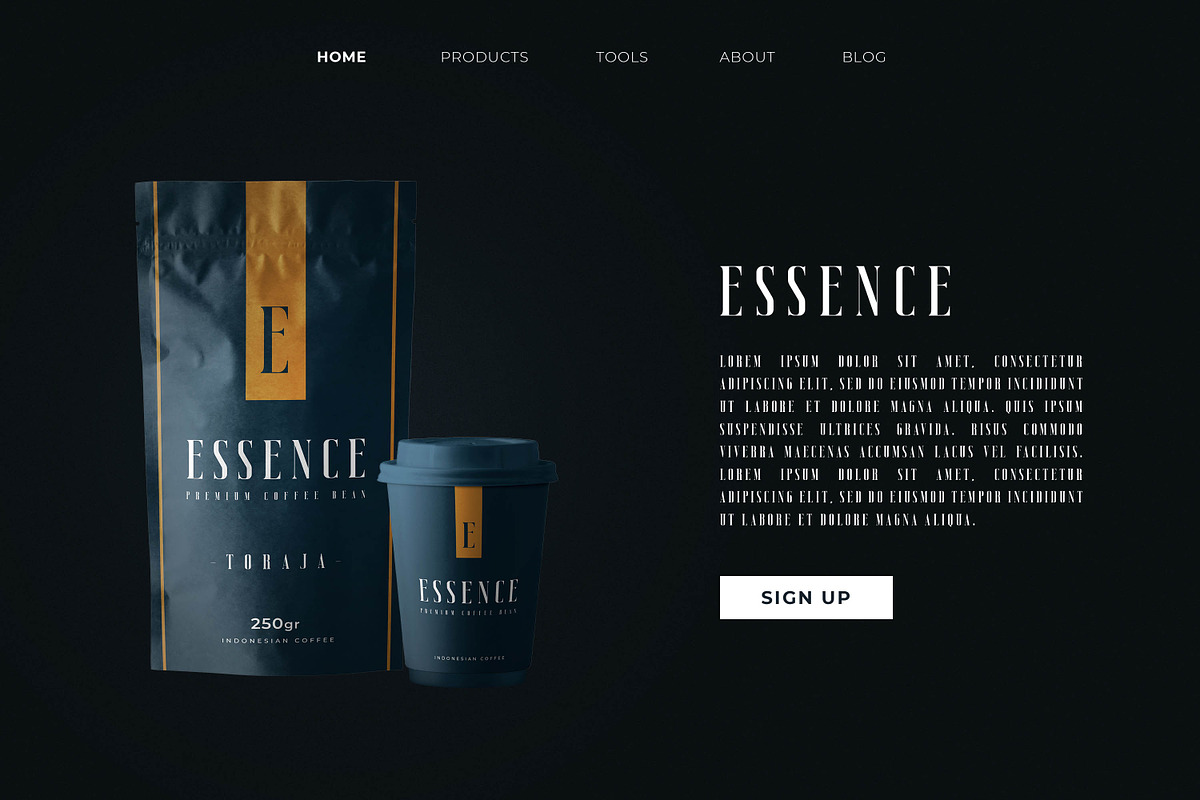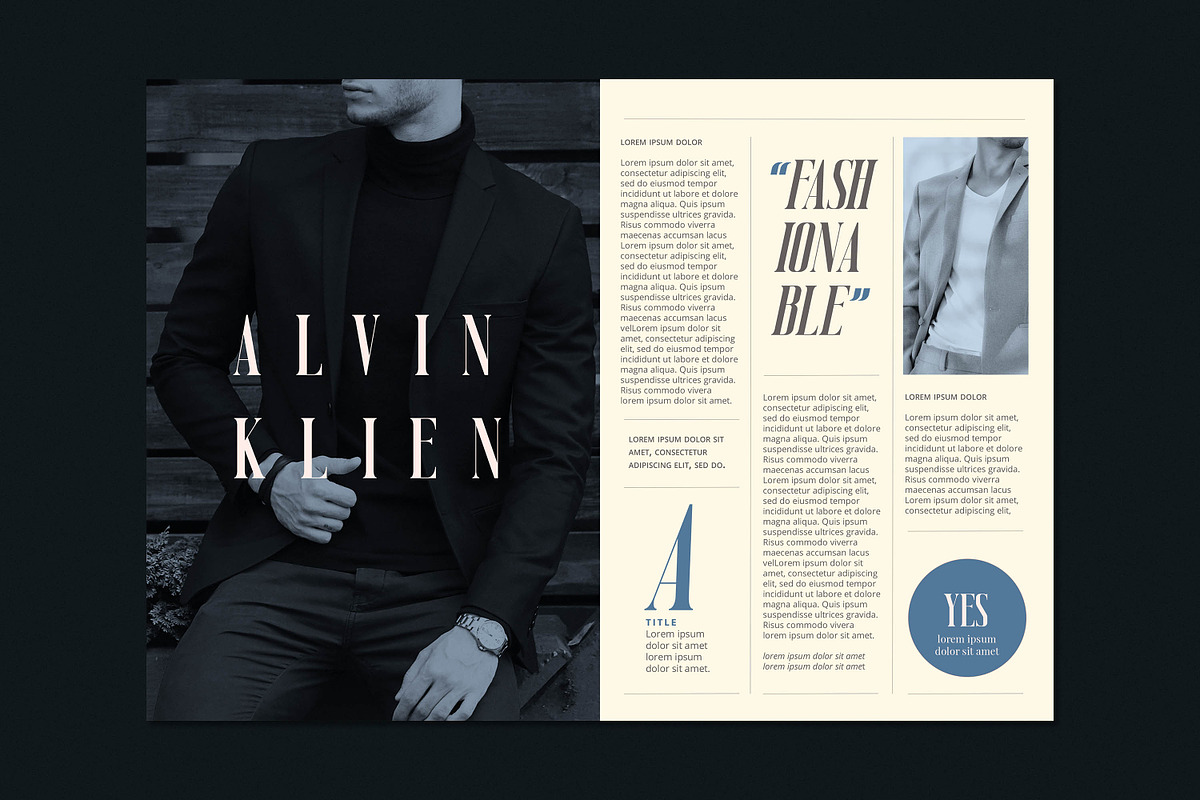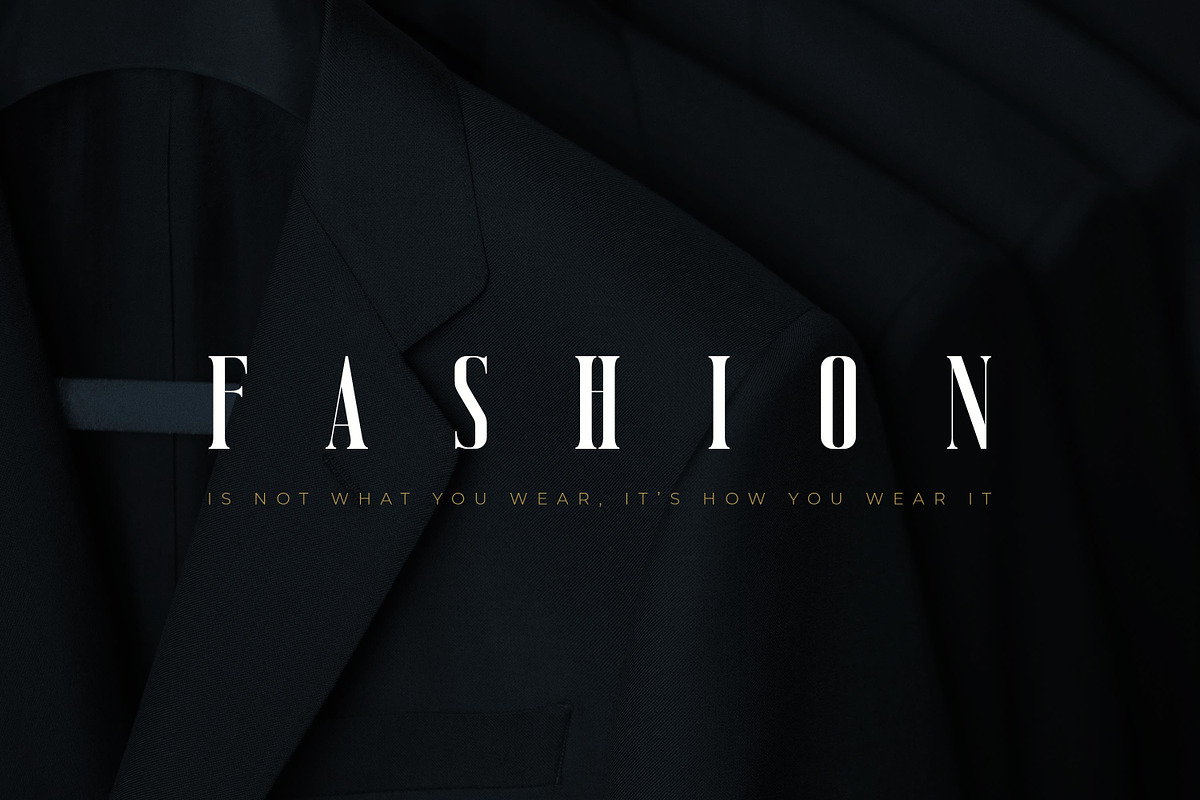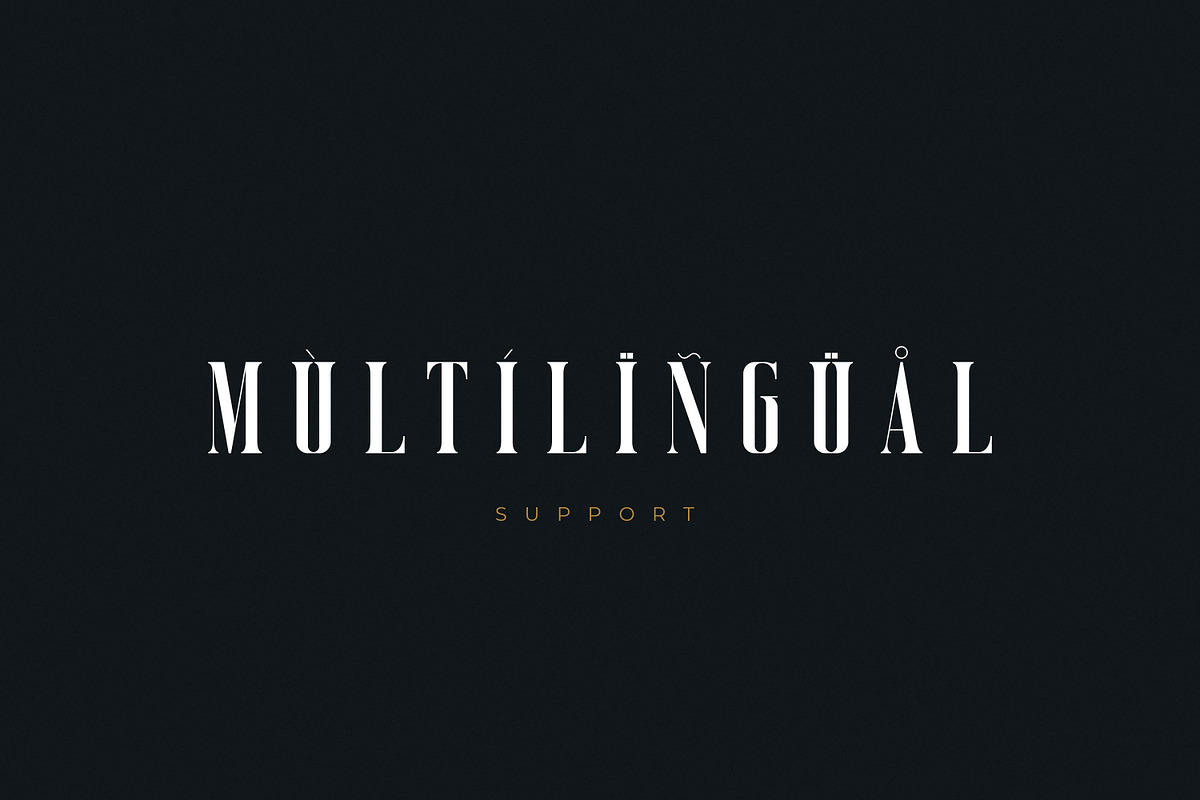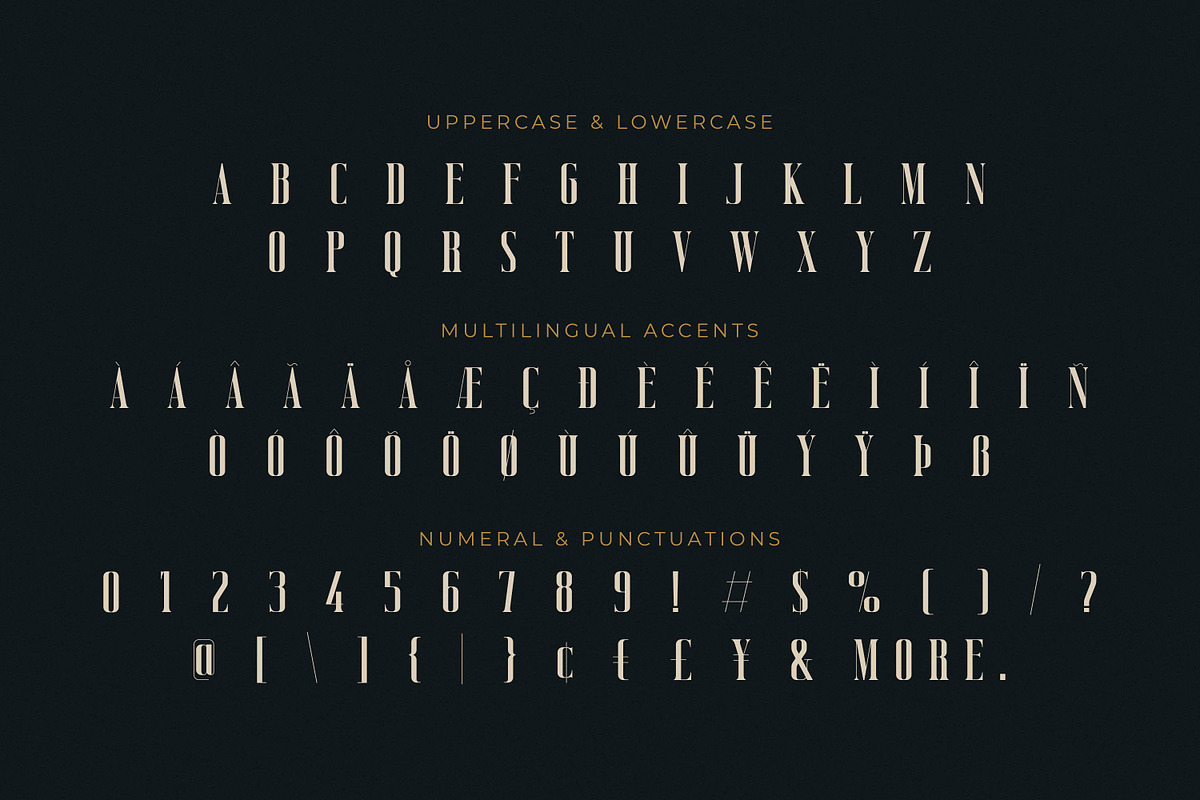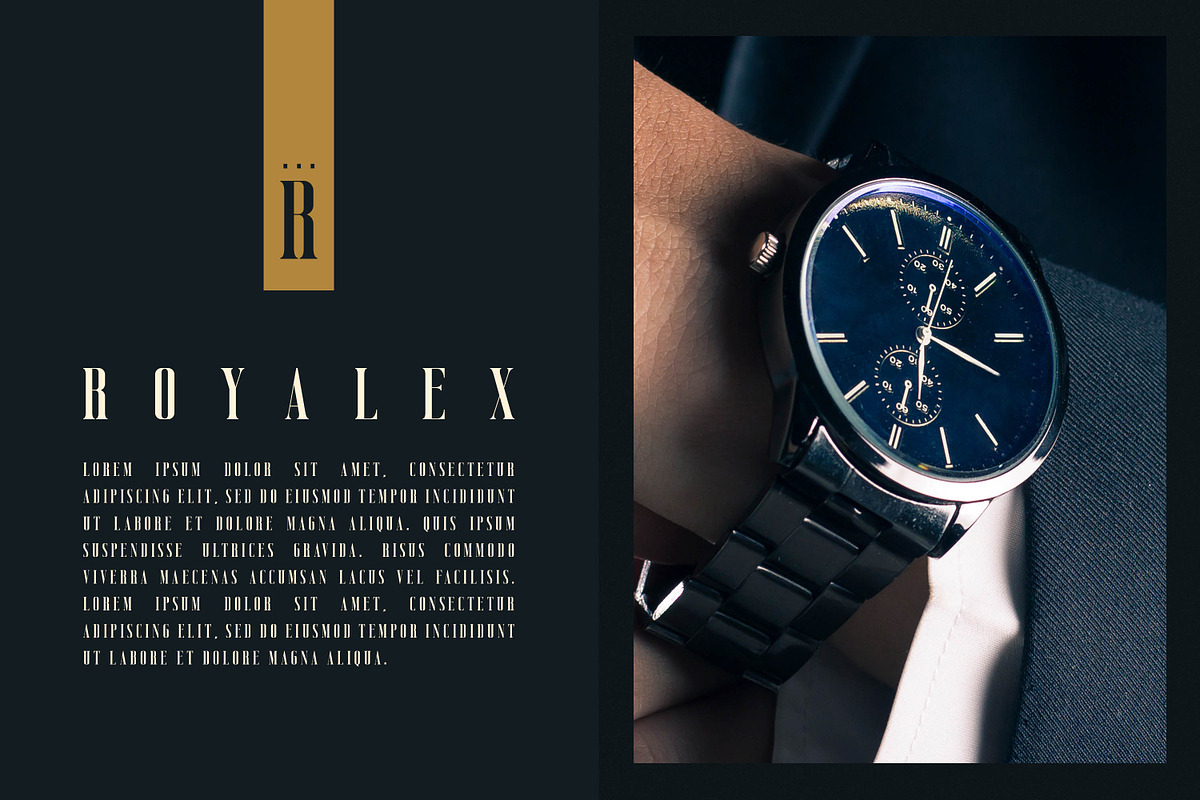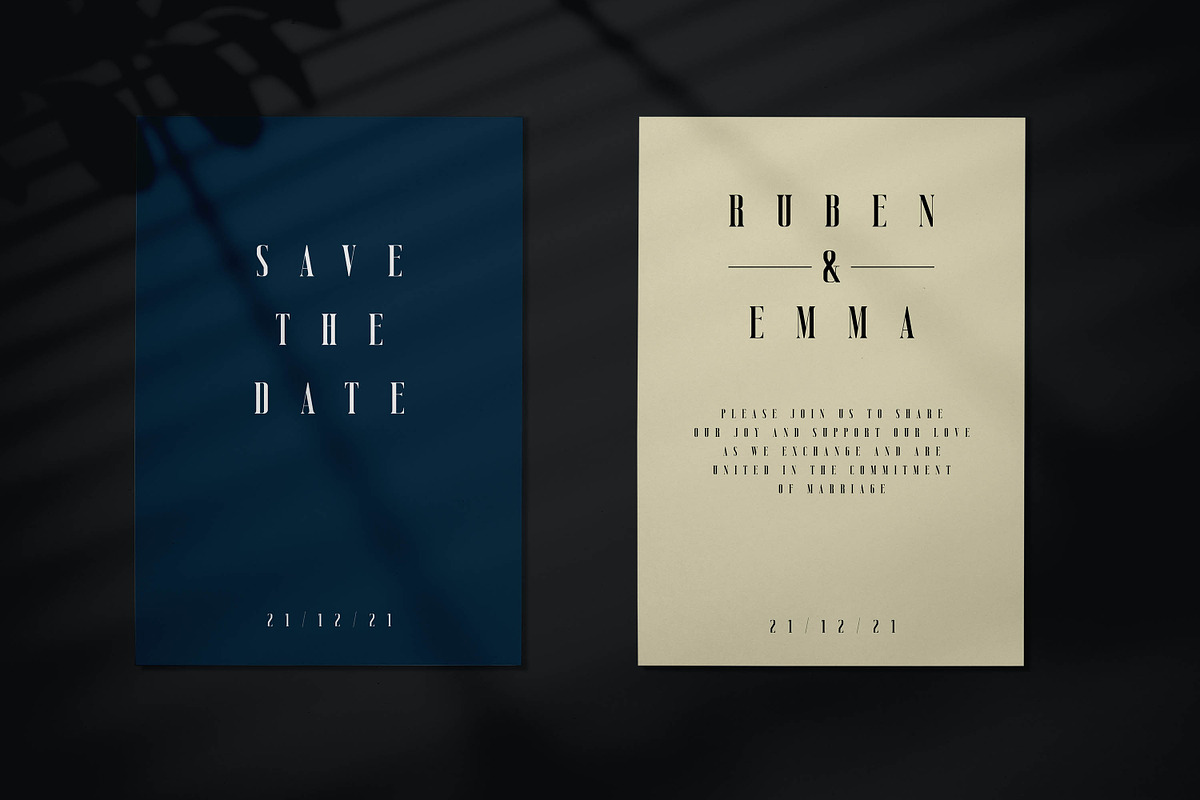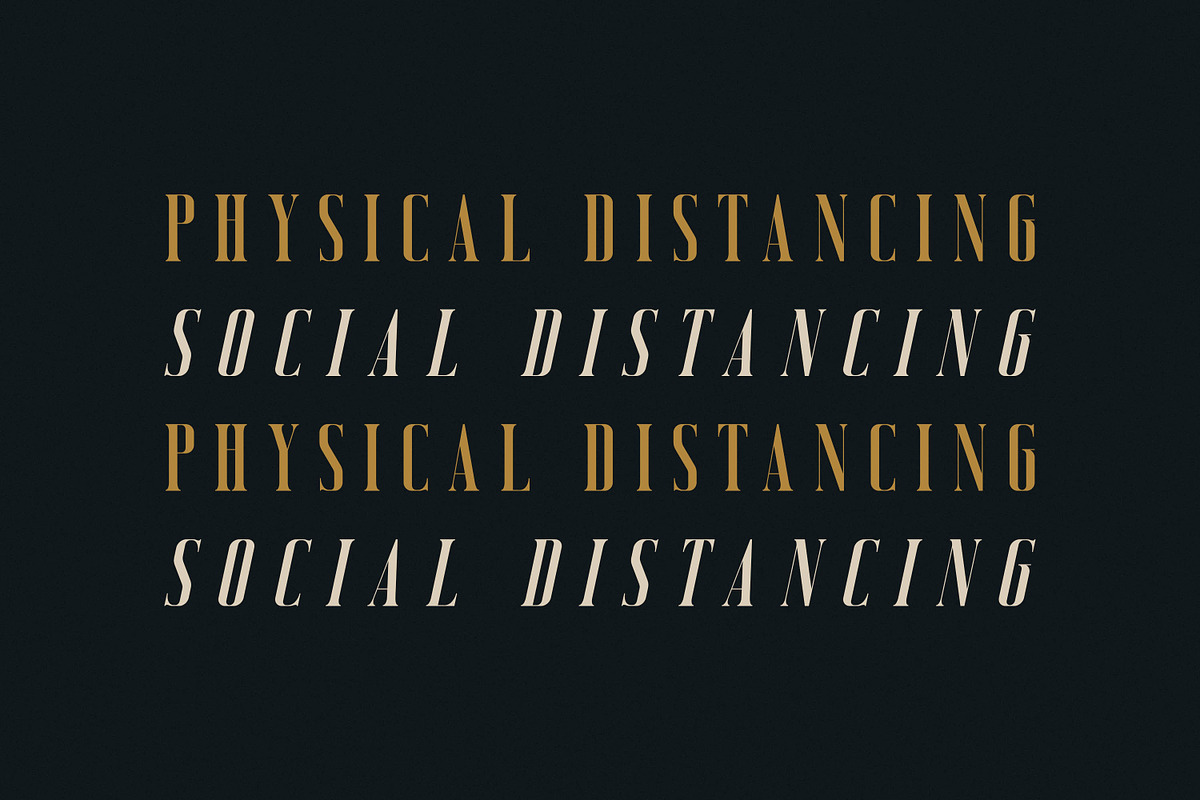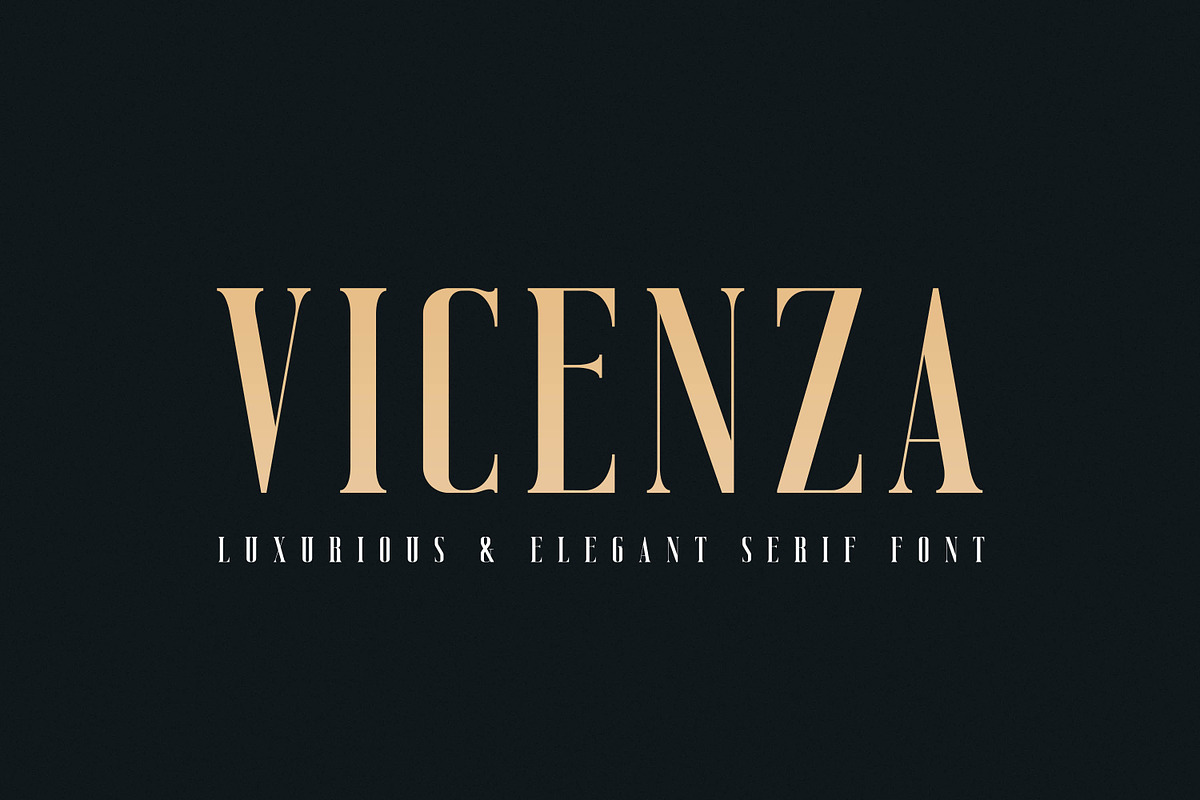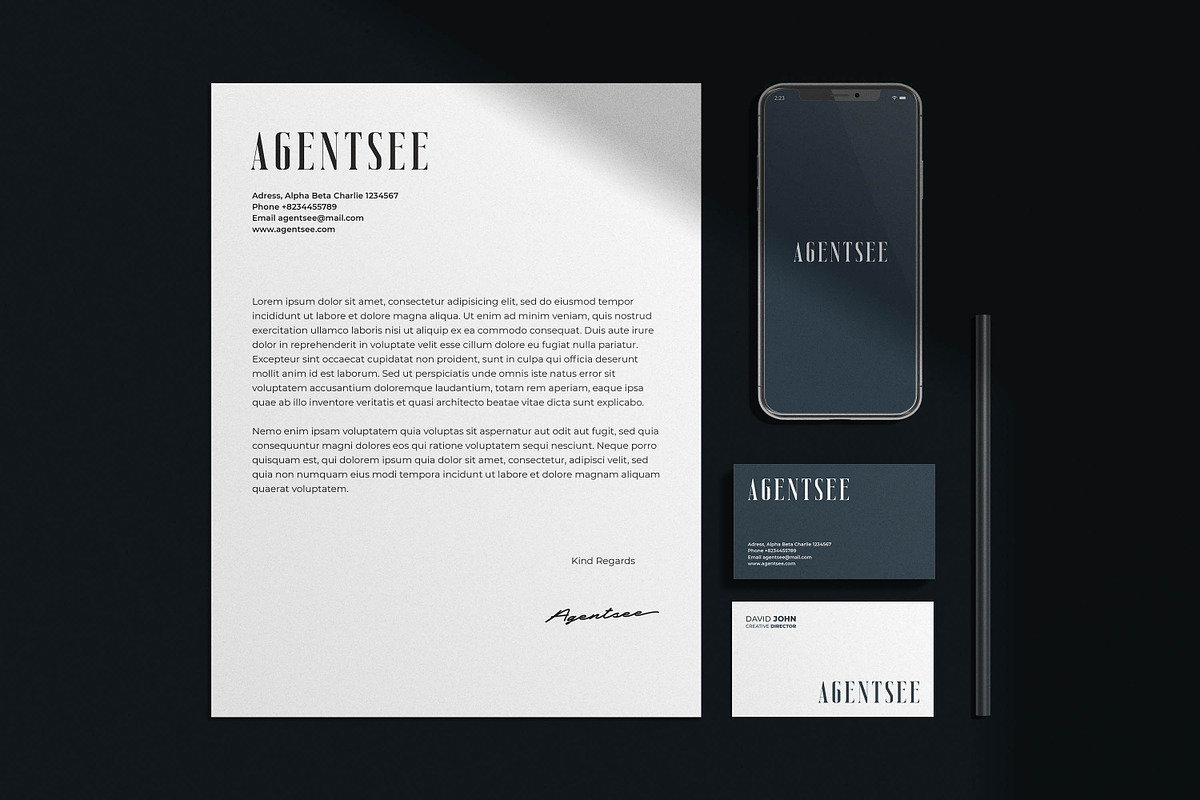
Vicenza - Luxurious & Elegant Serif
Introducing Vicenza – Elegant Serif a Luxury serif font with a stylish touch inspired by the famous minimalist logo and Vicenza has 2 regular and Italic styles is perfect for the purposes of designing templates, brochures, videos, advertising branding, logos and more.